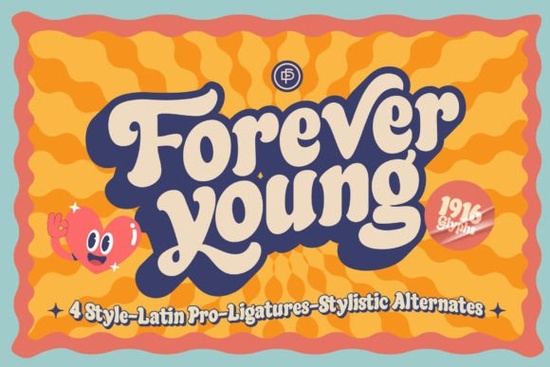
Designers, crafters, and small business owners looking for a unique way to add flair to their projects might find the Forever Young Font to be a valuable addition to their toolkit. This retro-style typeface draws inspiration from the bold and vibrant aesthetics of the 1970s disco era. Its distinctive shapes and exaggerated features make it ideal for creating eye-catching designs that evoke a sense of nostalgia.
The Forever Young Font is part of a growing trend in typography that blends historical influences with modern design needs. It’s particularly useful for branding, poster creation, and packaging where a vintage feel is desired. The font’s geometric elements and dynamic curves allow for creative flexibility, making it suitable for both digital and print applications.
What Makes Forever Young Stand Out?
The Forever Young Font is designed with a clear focus on the visual language of the 1970s. Its use of swirling lines, exaggerated serifs, and playful forms makes it perfect for projects that aim to stand out. Whether you're designing a logo, a social media post, or a promotional flyer, this font can help you achieve a look that feels both authentic and modern.
One of the key strengths of this font is its versatility. It works well in both large-scale applications, like banners and posters, and smaller details, such as headers or labels. Its boldness ensures that it remains legible even at smaller sizes, while still maintaining its distinctive character.
How to Use Forever Young in Your Projects
For designers working on retro-themed projects, the Forever Young Font can serve as a central element that ties together the overall aesthetic. It pairs well with other vintage-inspired fonts or can be used alone for maximum impact. When using it in print or digital formats, consider the contrast with other design elements to ensure readability without sacrificing style.
Crafters and print-on-demand sellers may find this font especially useful for creating custom t-shirts, mugs, or stickers. Its bold and expressive nature makes it ideal for items that need to grab attention. Small businesses looking to create a memorable brand identity can also benefit from incorporating this font into their marketing materials.
When choosing a font for your project, consider the message you want to convey. The Forever Young Font is an excellent choice if you're aiming for a fun, nostalgic, or energetic vibe. Its unique design elements make it stand out from more traditional typefaces, offering a fresh approach to retro styling.
Whether you're a seasoned designer or just starting out, experimenting with different fonts can lead to new creative opportunities. The Forever Young Font is one such tool that can bring a touch of 1970s flair to your next project.